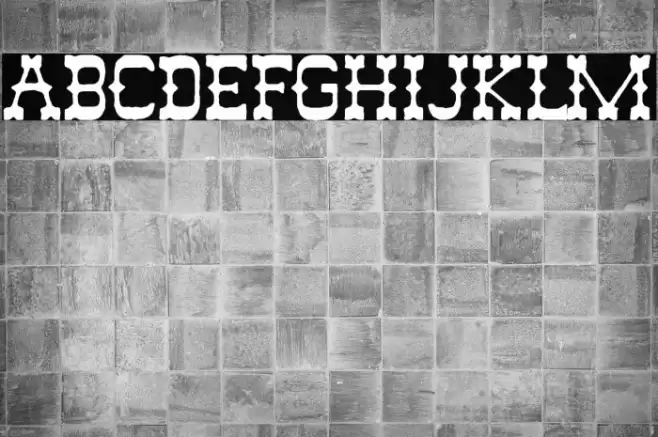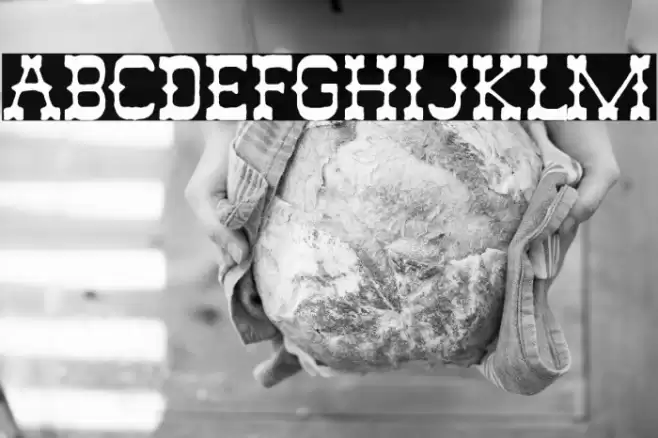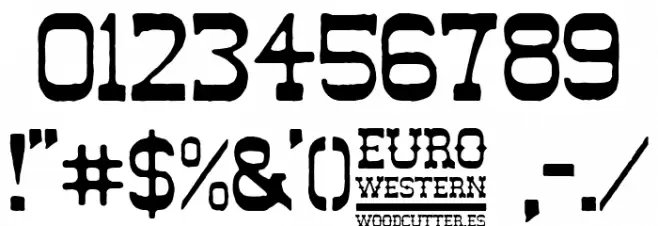
Euro Western Font
Euro Western Description
This font embodies a rugged, bold aesthetic reminiscent of the Wild West. Its thick, blocky letters feature irregular edges and a distressed appearance, giving it a vintage, handcrafted feel. The uppercase letters are prominent and commanding, while the numerals and special characters maintain the same robust style. This font's unique character is perfect for designs that aim to evoke a sense of adventure and nostalgia, making it ideal for themed projects or branding that requires a touch of the frontier spirit.
A rugged, vintage font with a bold, distressed Western style from Uncategorized fonts.
- Proposed Projects: Ideal for posters, branding, and themed events that require a Western or vintage aesthetic.
- Overall Style: Vintage